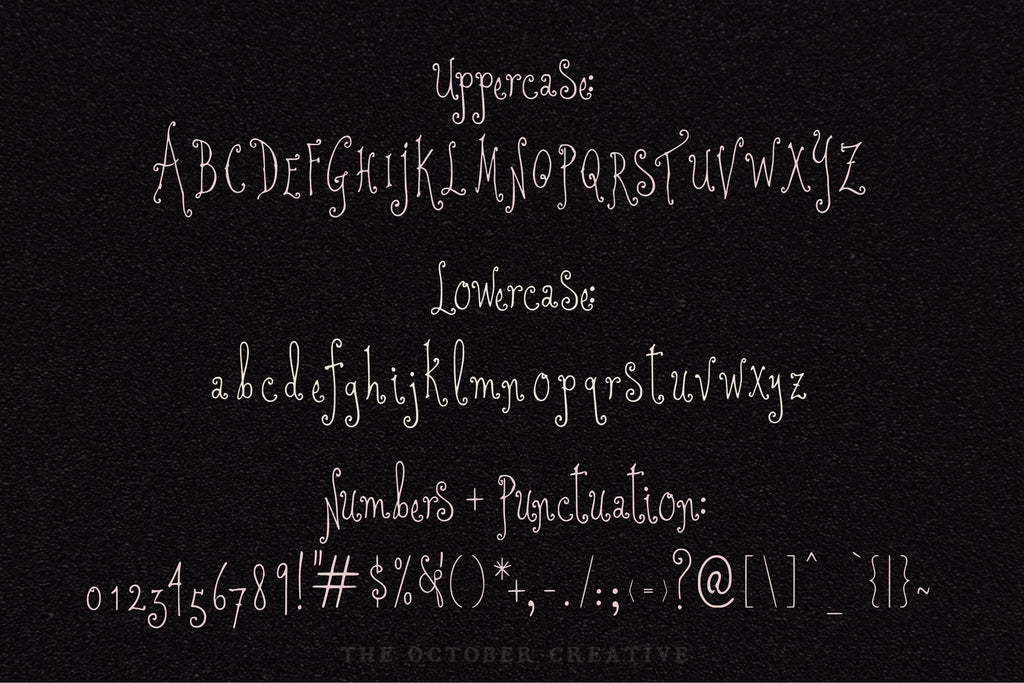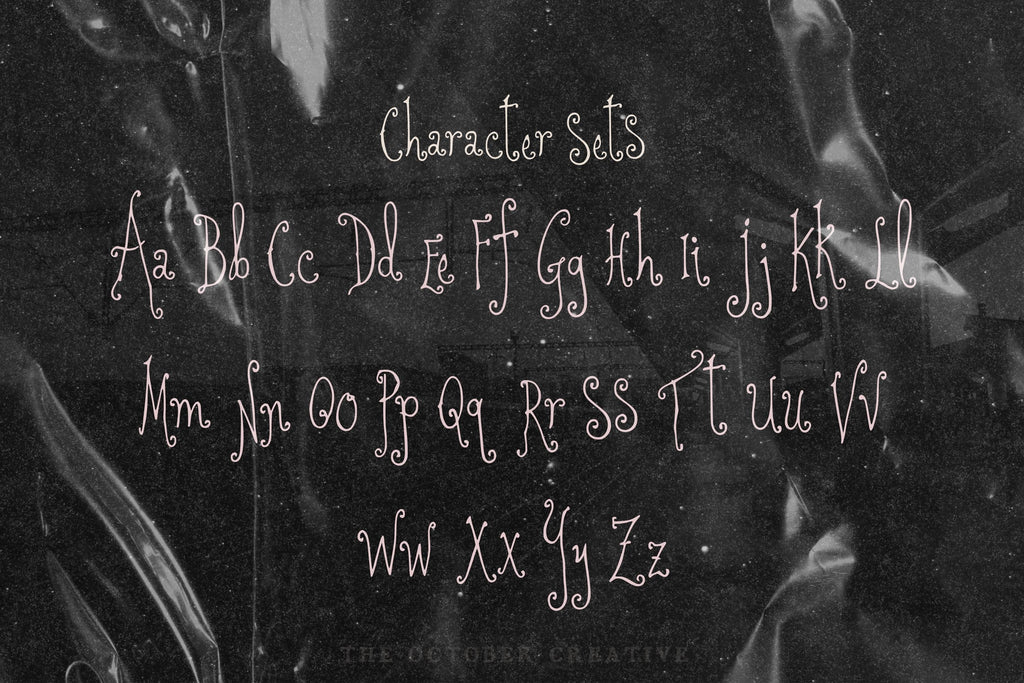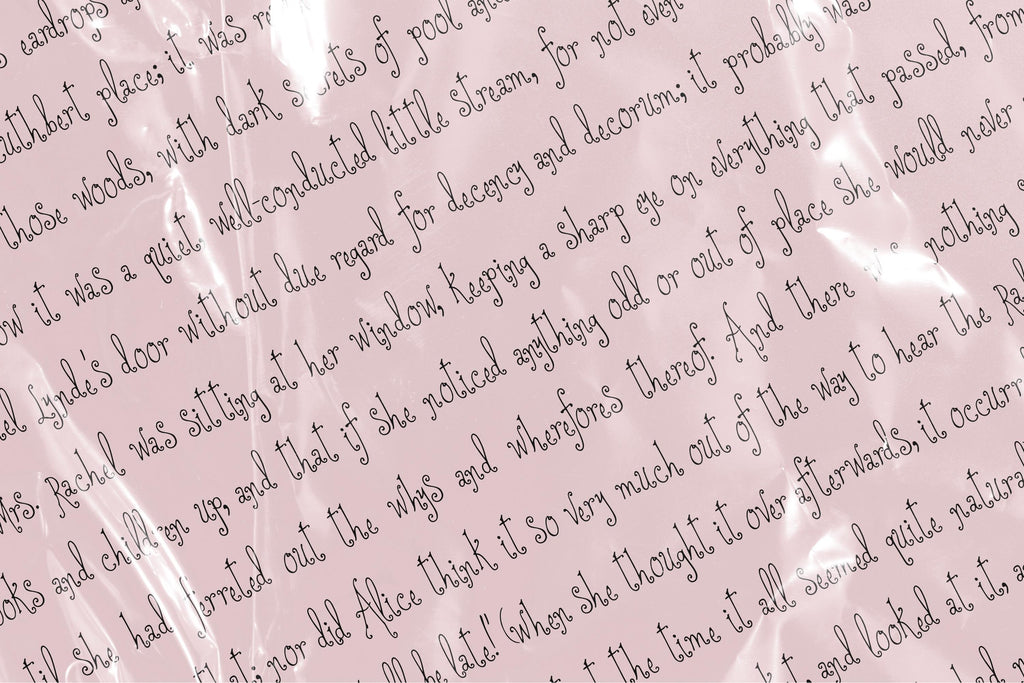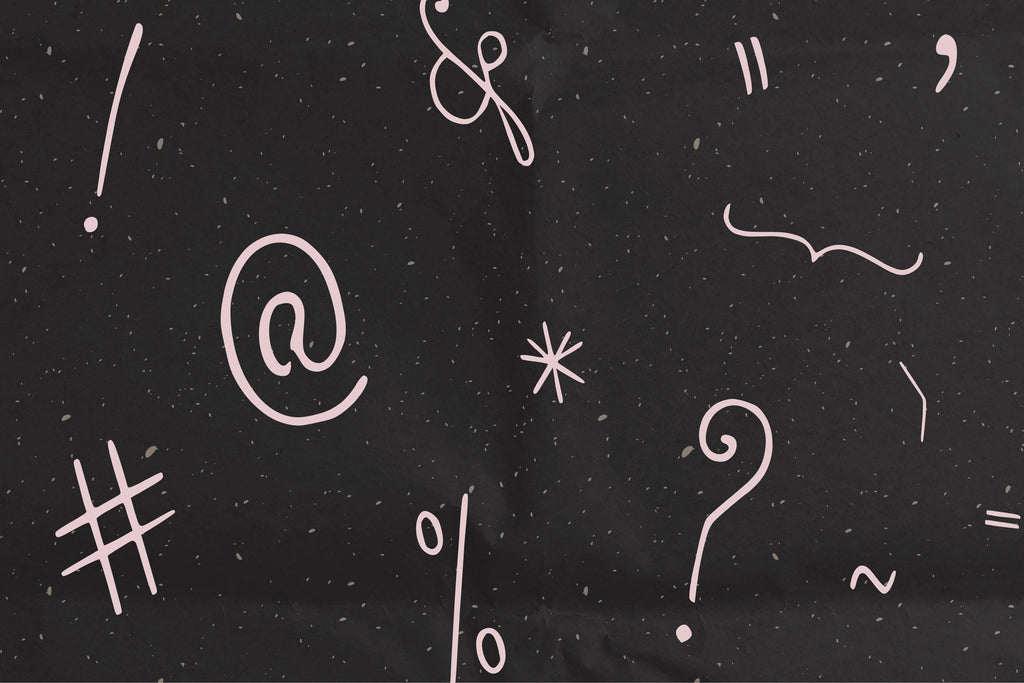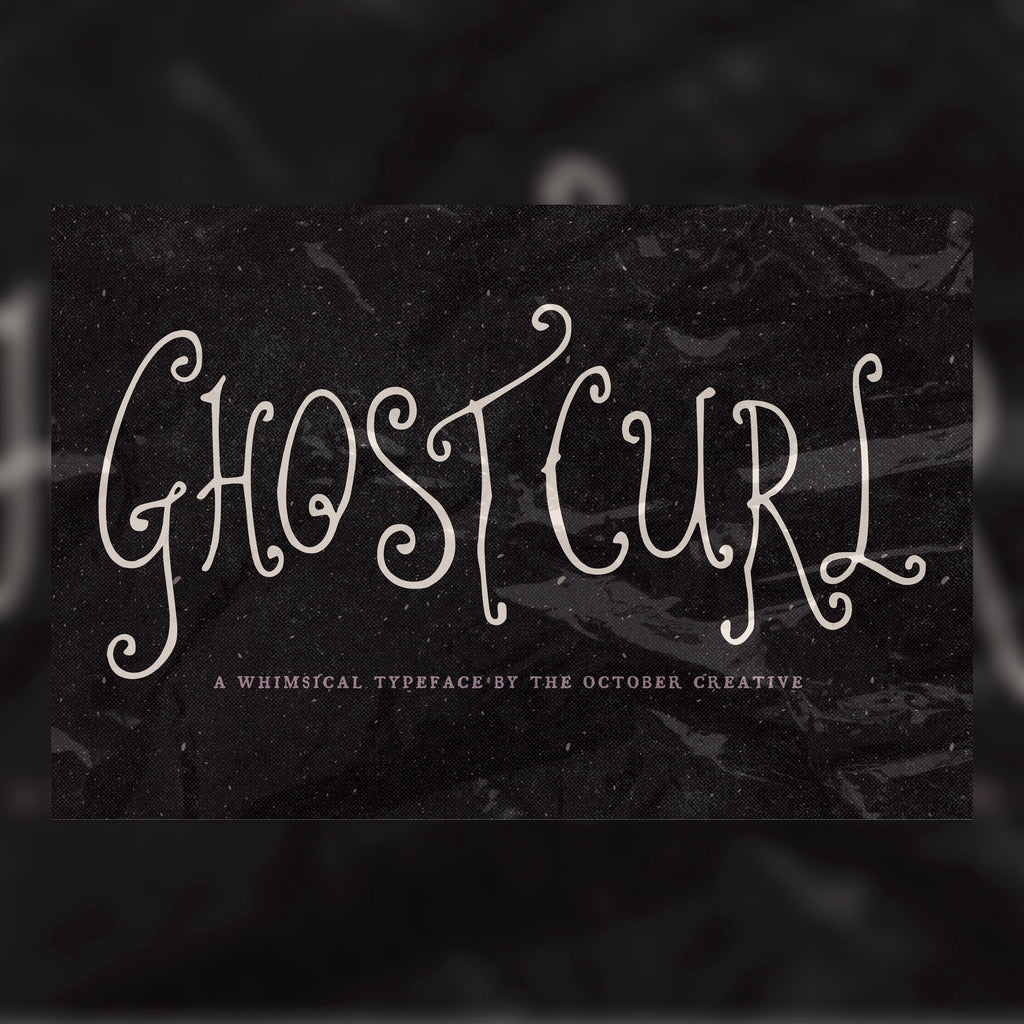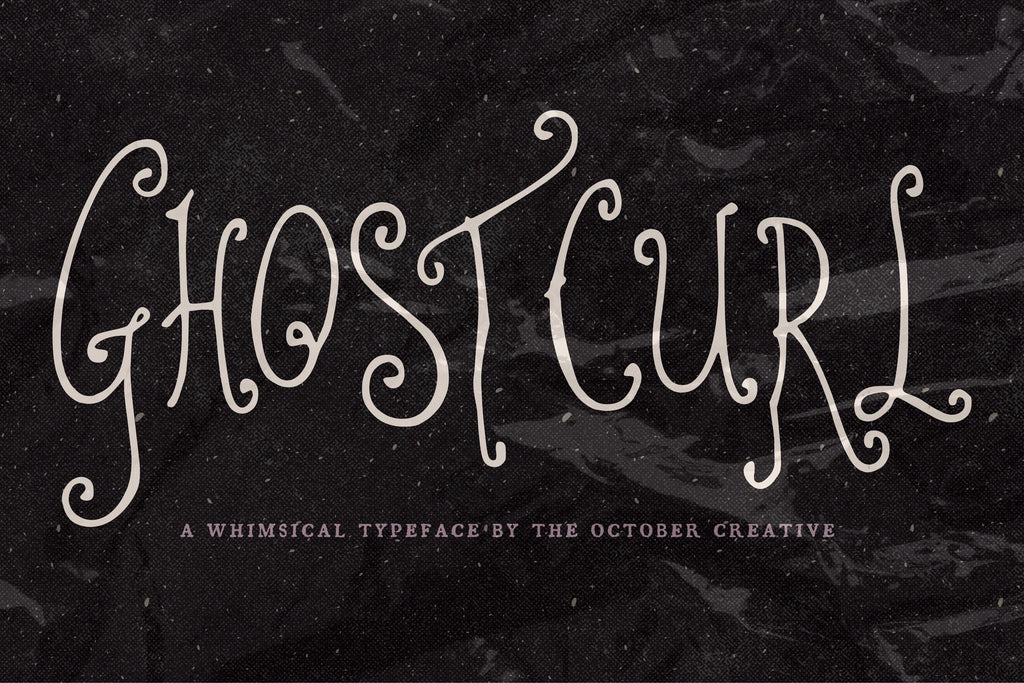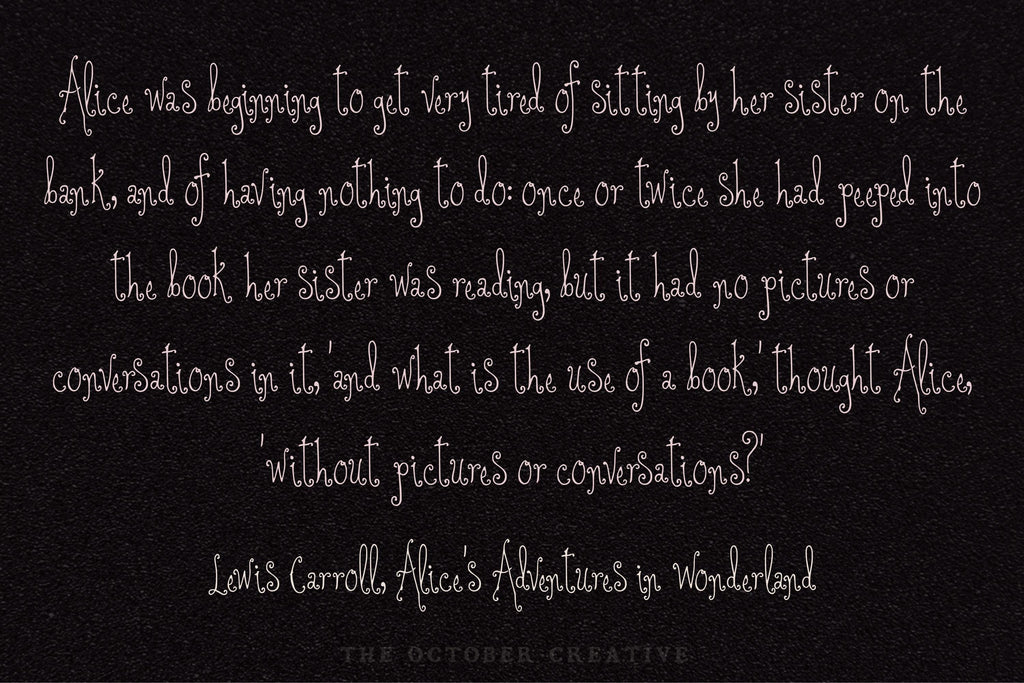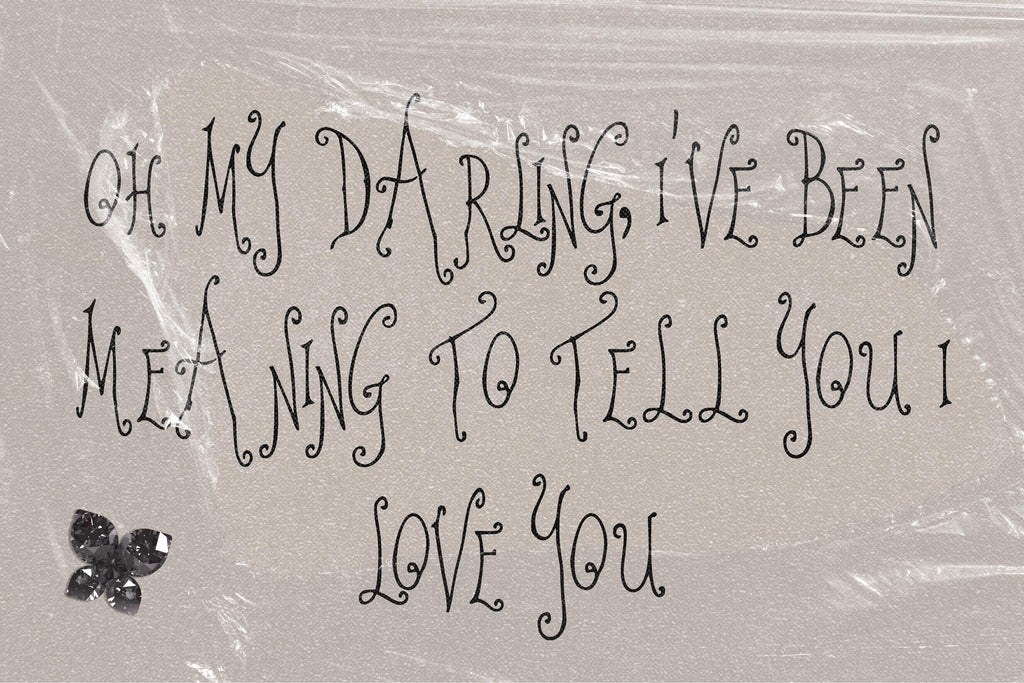
Ghostcurl Font
Ghostcurl gives your words fine, wispy curls that feel just right for a ghost story or a Halloween gathering. Try it on invitations and wall prints, and use it generously sized so those delicate details have room to show.